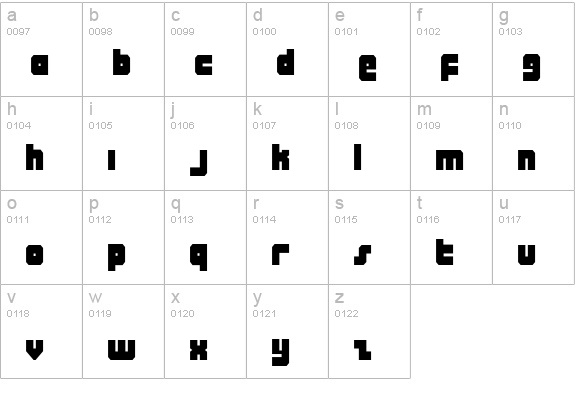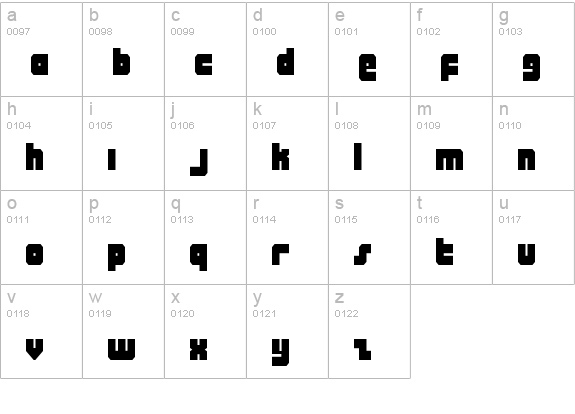
Alpha Taurus Font Details
Alpha Taurus is a stunning and versatile font that exudes elegance and sophistication. Its sleek lines and modern design make it perfect for a wide range of projects, from branding to packaging to social media graphics. This font is sure to make your text stand out and leave a lasting impression on your audience. The best part? Alpha Taurus is completely free to download at FontsMarket.com. You can easily access this premium font and elevate your designs without any cost. Don't miss out on this opportunity to add a touch of class to your projects with Alpha Taurus. Download it today and see the difference it can make!